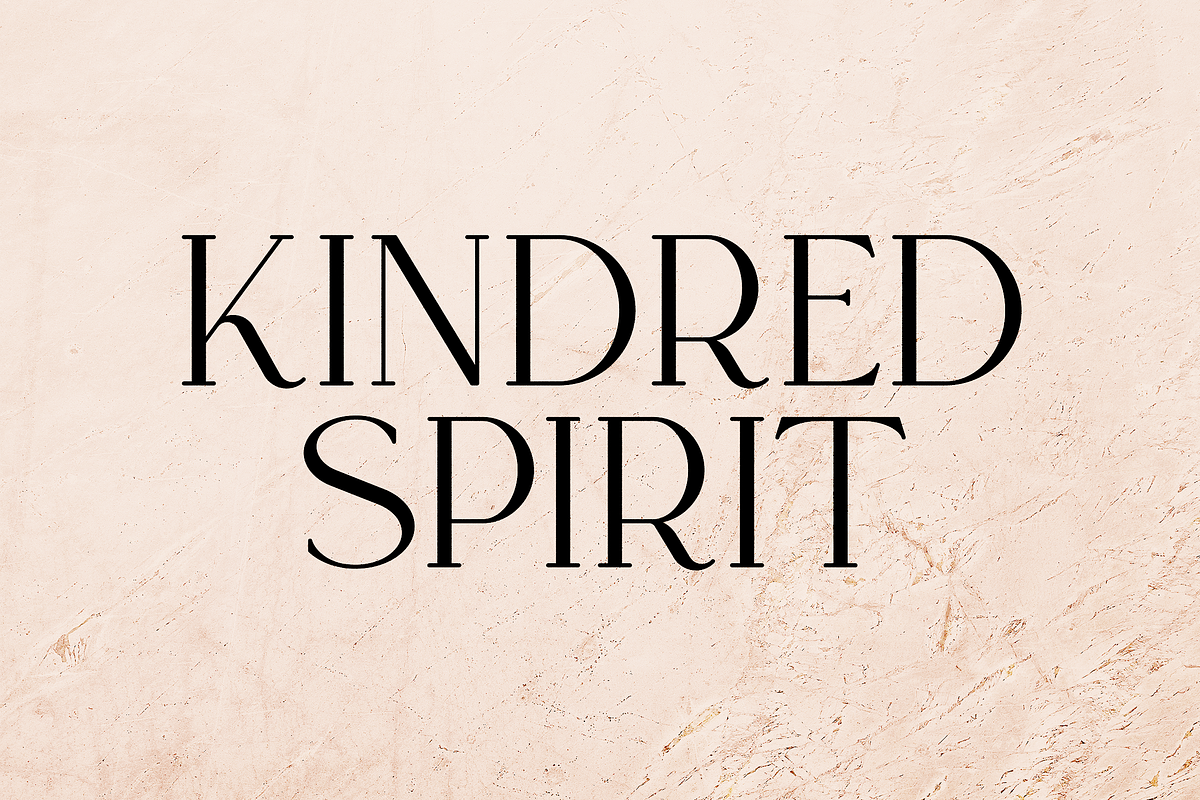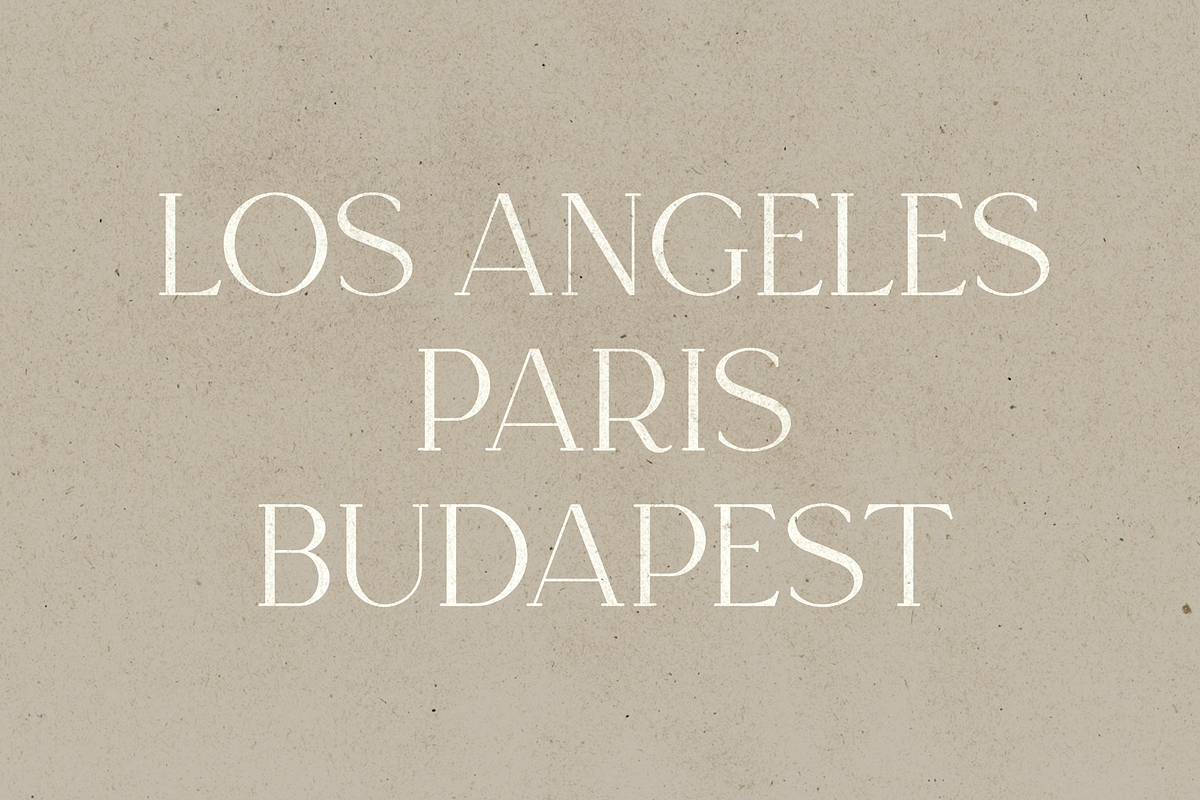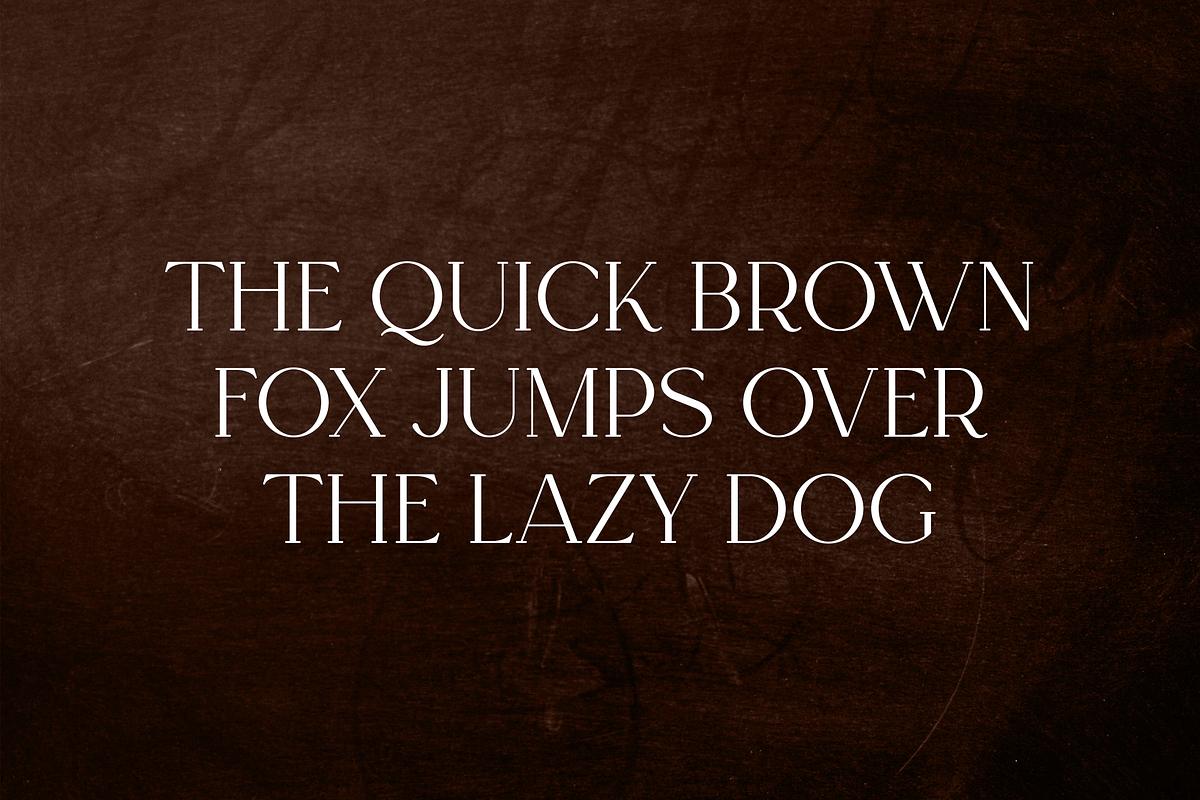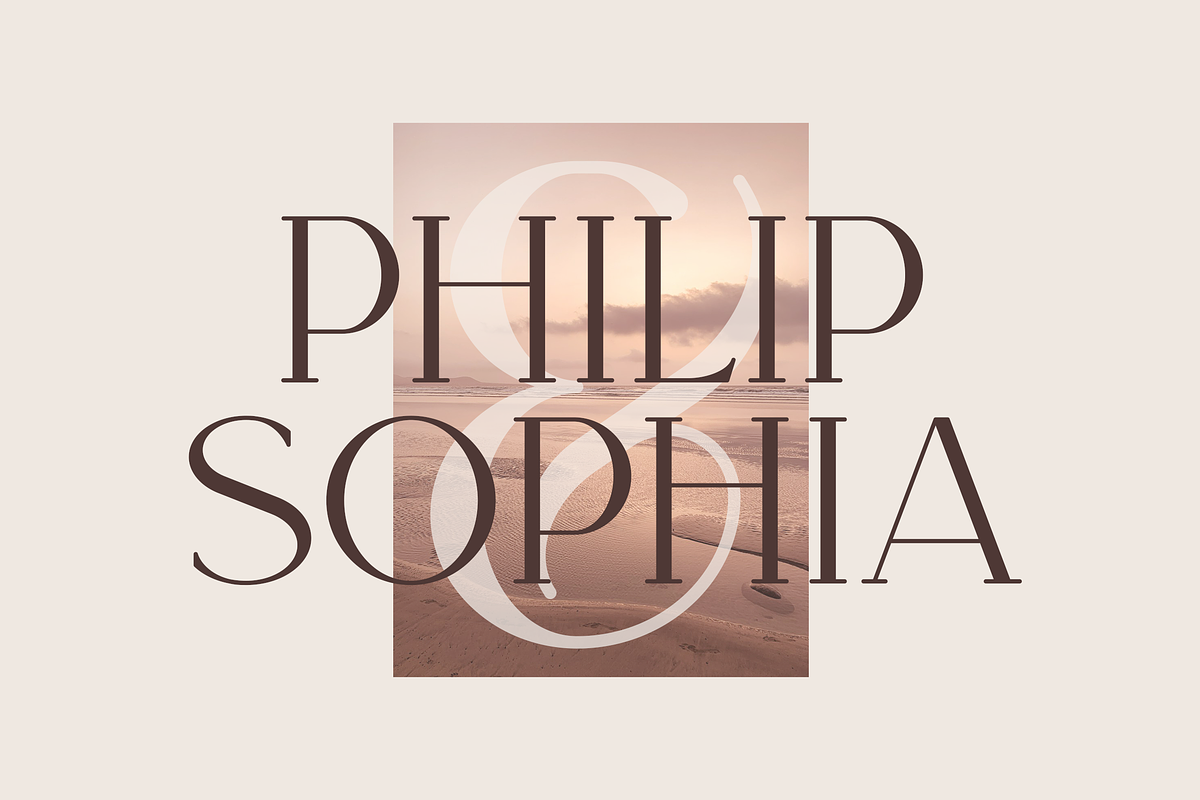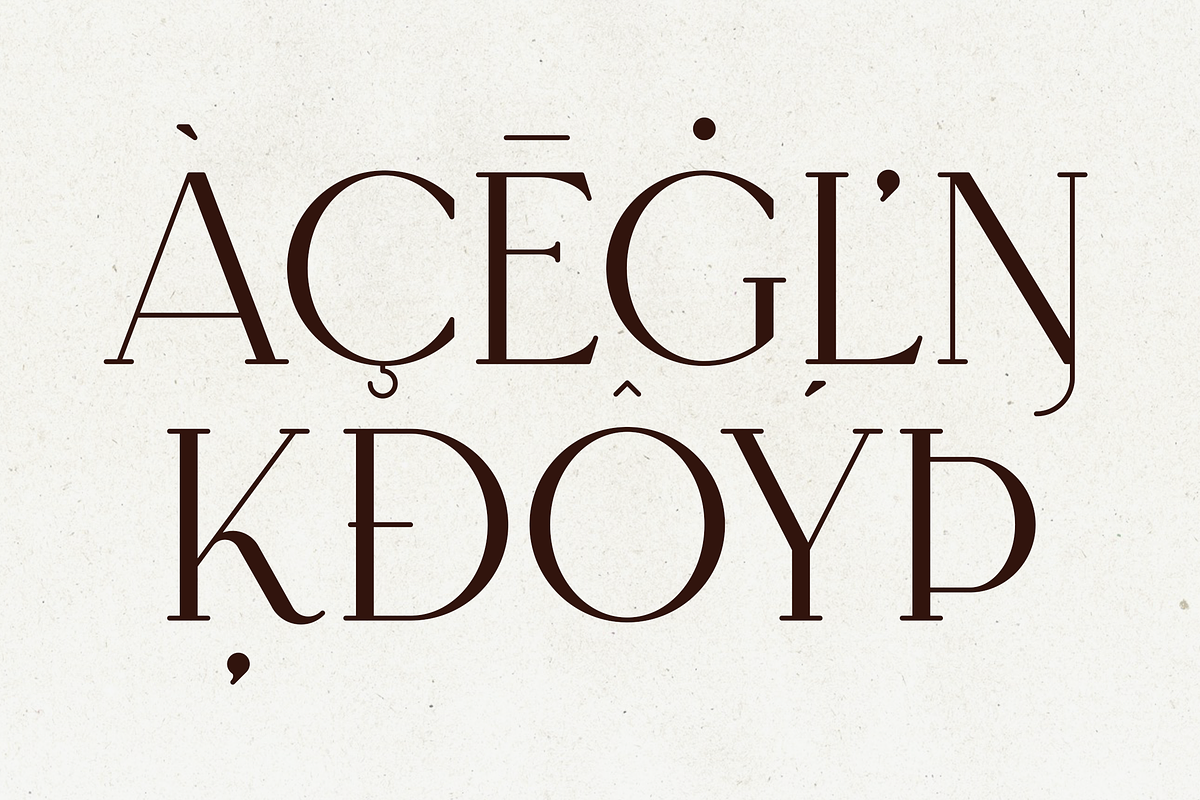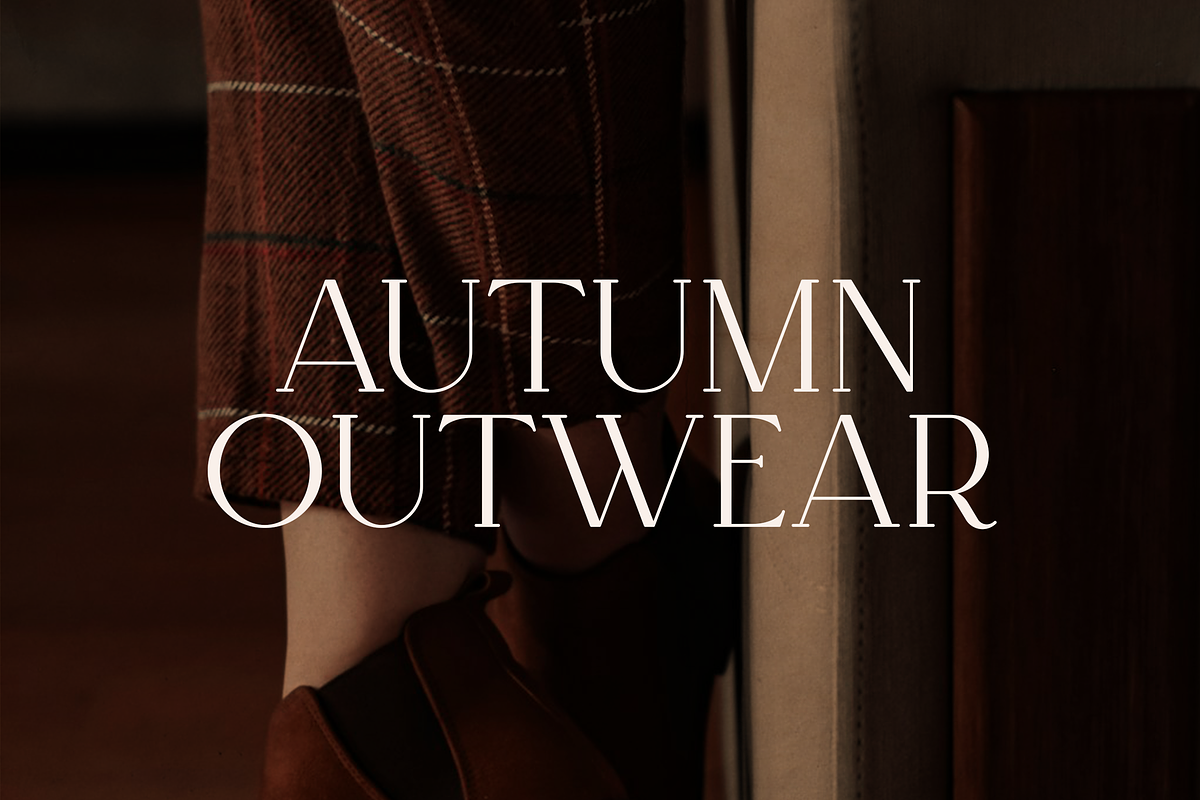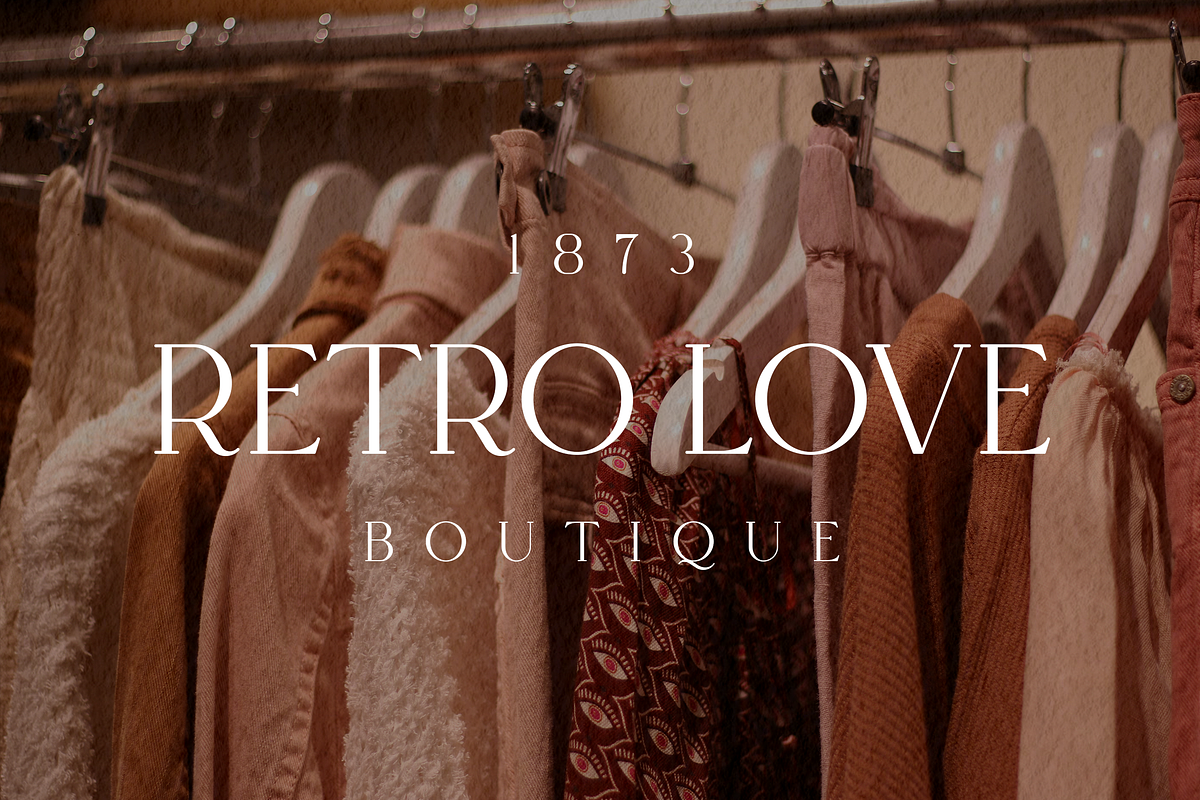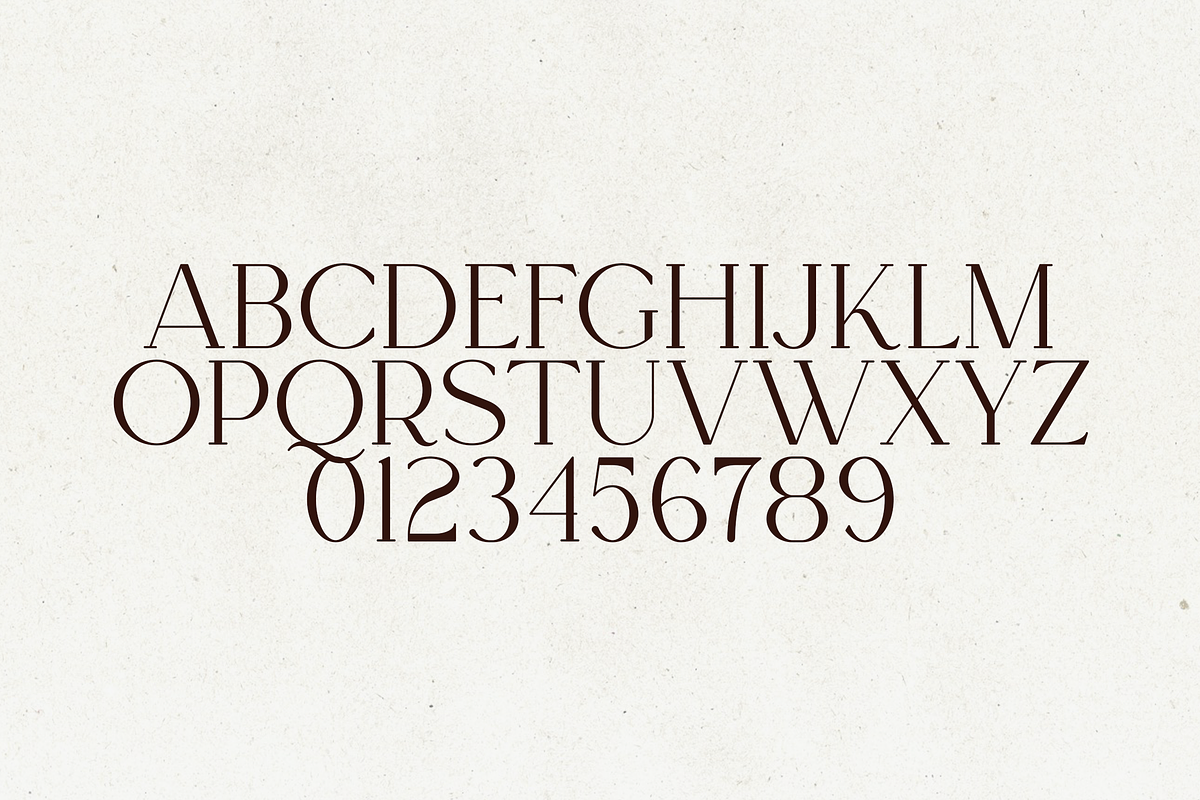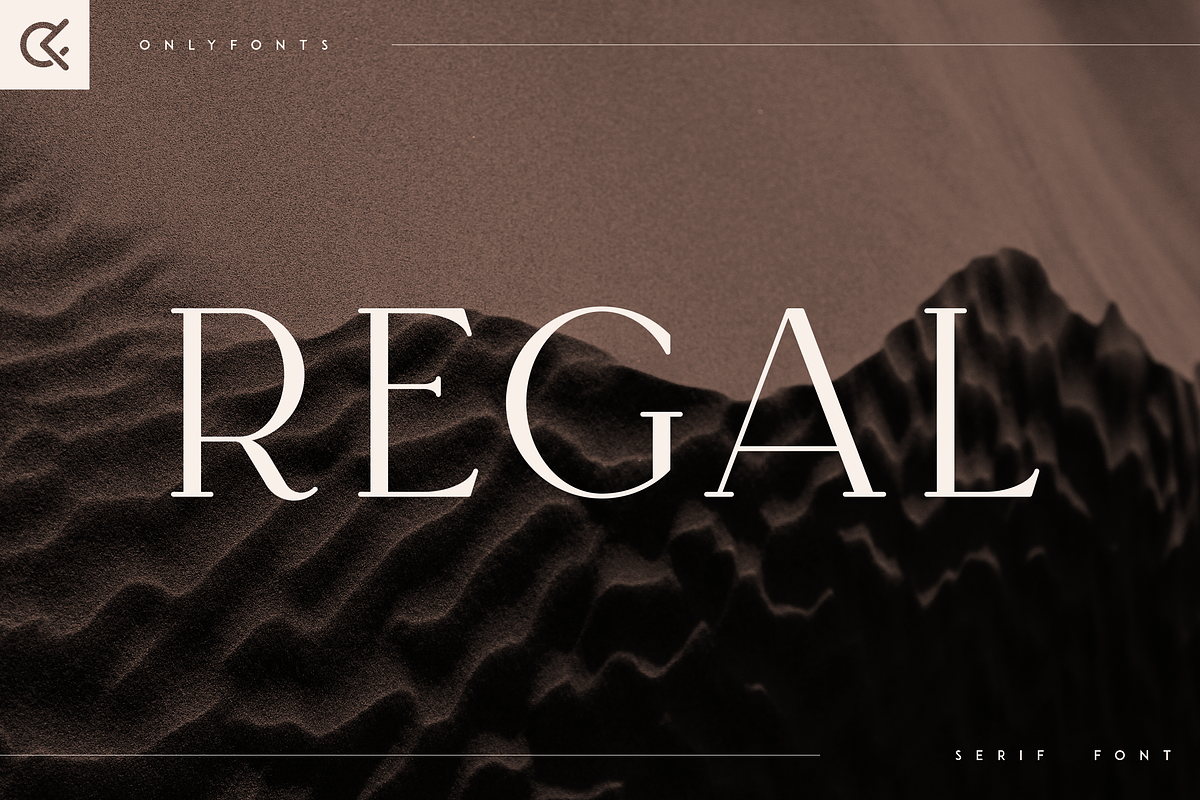
Regal - Elegant Serif Font
Regal - Elegant Wide Serif Font with Multilingual Support
Regal is an elegant wide serif font designed to bring a touch of grandeur and sophistication to your projects. With its distinctive wide letterforms and refined serifs, Regal stands out in both digital and print media. Supporting 87 languages, this versatile typeface ensures your message is beautifully conveyed across diverse audiences. Ideal for luxury branding, editorial design, invitations, and more, Regal combines classic elegance with modern versatility for a truly majestic typographic solution.